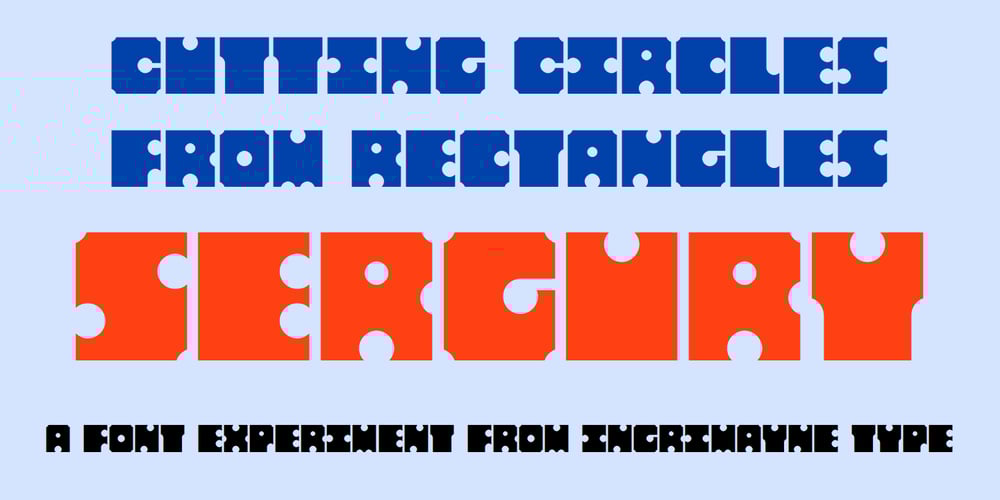
Sergury
Sergury font
Sergury Font Family was designed by Robert Schenk and published by Ingrimayne Type. Sergury contains 4 styles and family package options. Sergury is an ultra-bold typeface formed by cutting circular elements from rectangular blocks. It is caps only and is so bold that it is almost unreadable. The three tall styles were added in 2021. Sergury is a variation of Porker, another experimental typeface.